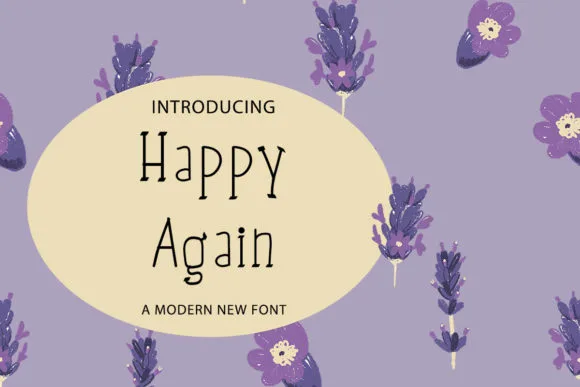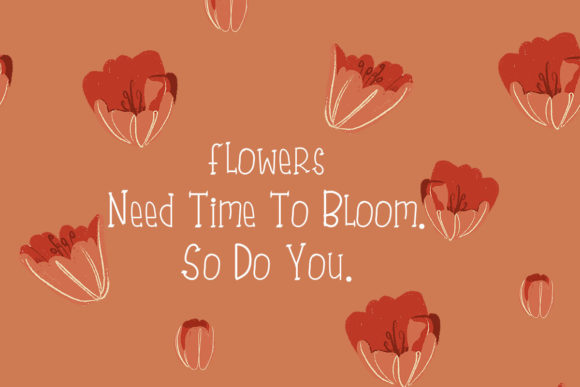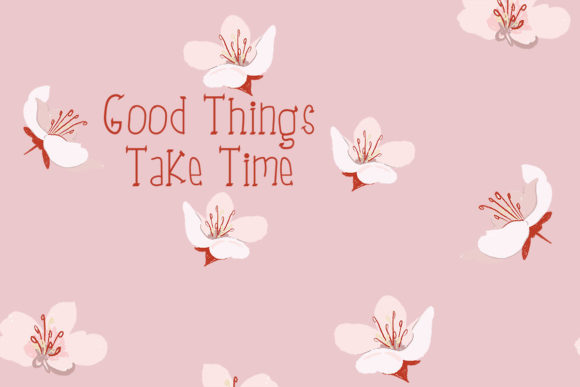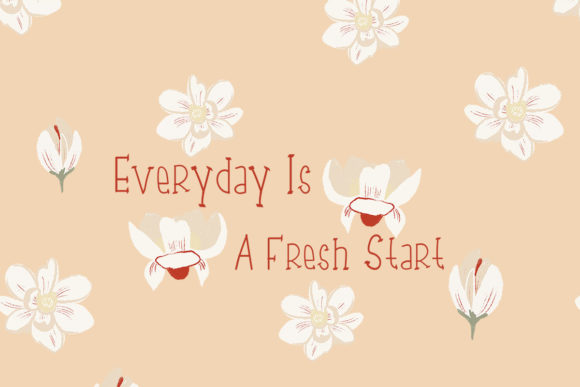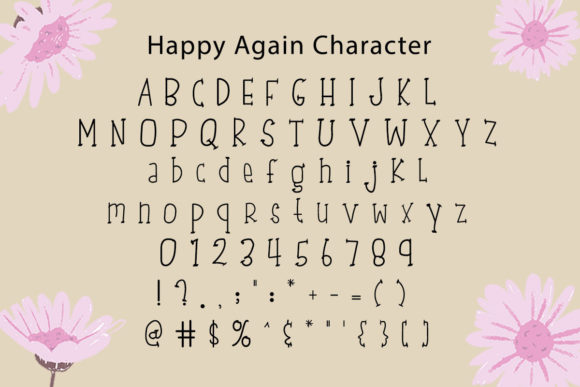
Happy Again Font
**Happy Again: A Charming and Versatile Serif Font for Creative Brilliance**
Introducing “Happy Again,” a delightful and casual serif font that adds a touch of charm to any creative project. This typeface is designed to stand out in various contexts, making it an excellent choice for a wide range of applications, from Instagram posts to DIY projects requiring a touch of calligraphic elegance. With its unique style and versatility, Happy Again has the power to transform your creative ideas into true works of art.
One of the standout features of Happy Again is its suitability for diverse purposes. Whether you’re designing a logo, crafting headings, creating stylish t-shirts, developing professional letterheads, designing eye-catching signage, producing labels, composing engaging news articles, or crafting vibrant posters and badges, Happy Again rises to the occasion. Its adaptability makes it a go-to choice for designers, content creators, and anyone seeking a font that effortlessly blends playfulness with sophistication.
The charming aesthetic of Happy Again is particularly well-suited for logos, where it can infuse a brand with personality and memorability. The fluidity of the letterforms lends itself beautifully to captivating headings that demand attention. T-shirts adorned with Happy Again exude a trendy and fashionable vibe, making a bold statement with every wear. When used in letterheads and signage, this font adds a touch of professionalism while maintaining a friendly and approachable feel.
Labels designed with Happy Again become more than just informative; they become pieces of visual art that captivate consumers. News articles and blog posts gain an extra layer of visual appeal, ensuring that the content is not only engaging but also aesthetically pleasing. Posters and badges designed with Happy Again become instant attention-grabbers, making any event or promotion more visually appealing.
The versatility of Happy Again extends to its ability to complement various design elements seamlessly. Whether you’re working on a modern and sleek project or opting for a more vintage and classic aesthetic, this font effortlessly adapts to the tone and style you desire.
In conclusion, Happy Again is not just a font; it’s a creative companion that elevates your design projects to new heights. Its cute and casual demeanor, combined with its adaptability, makes it a standout choice for designers across different industries. Embrace the charm of Happy Again, and let your creativity flourish as it turns your ideas into genuine pieces of art.